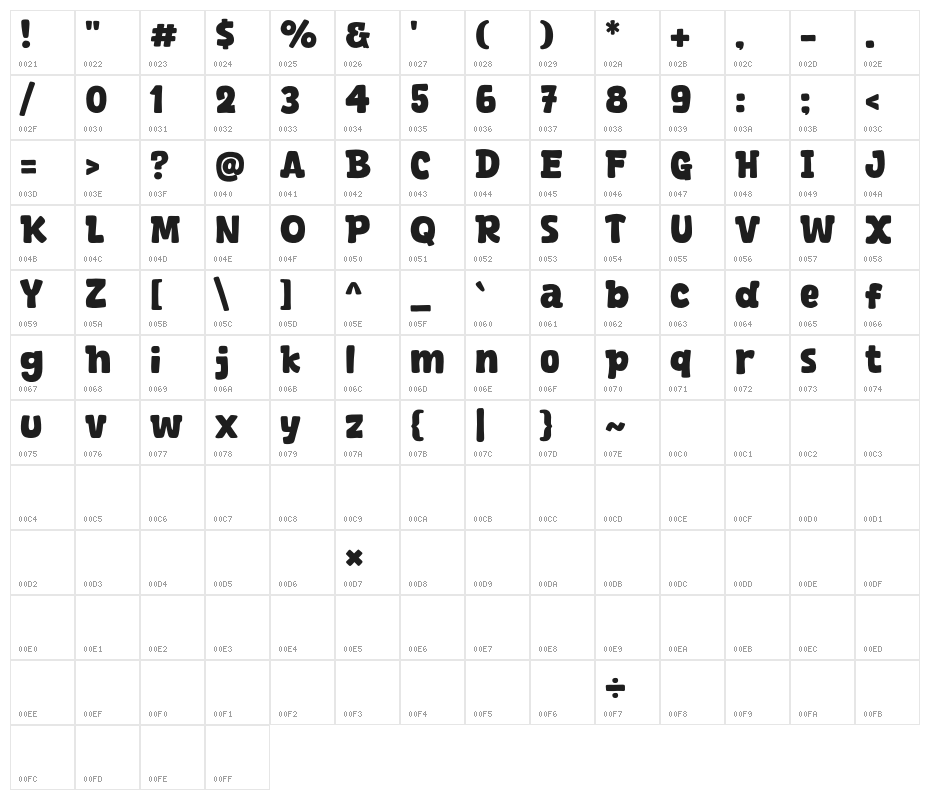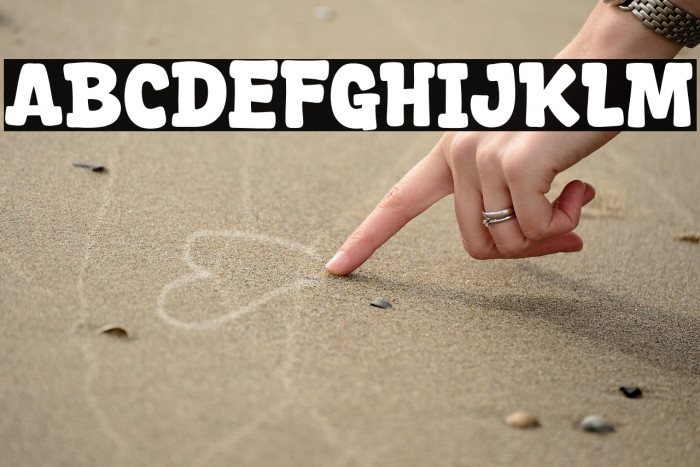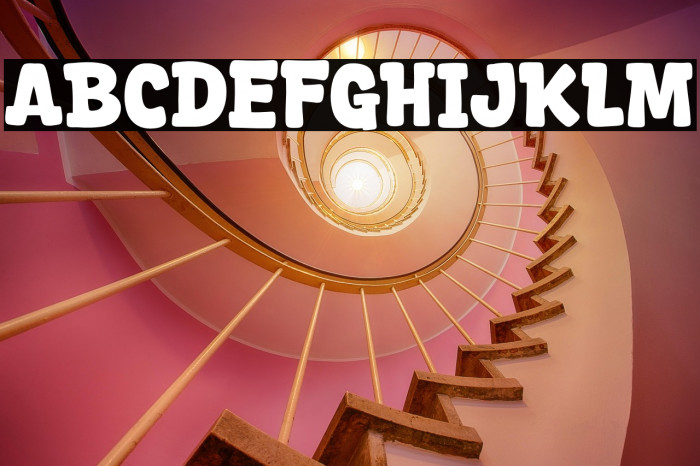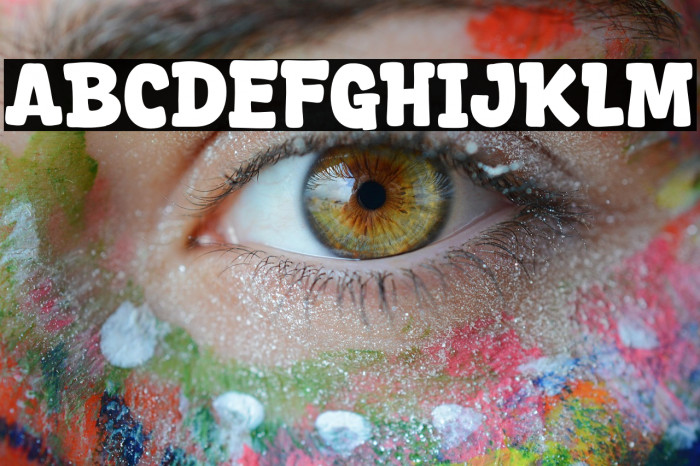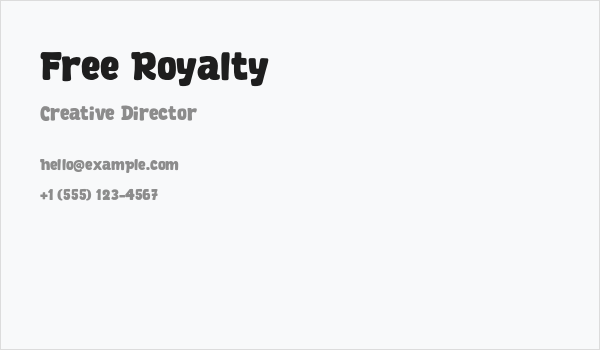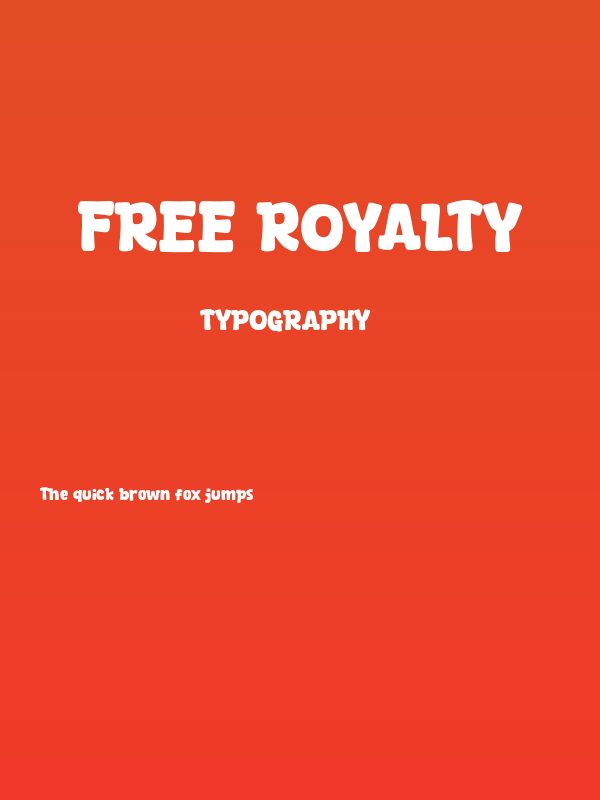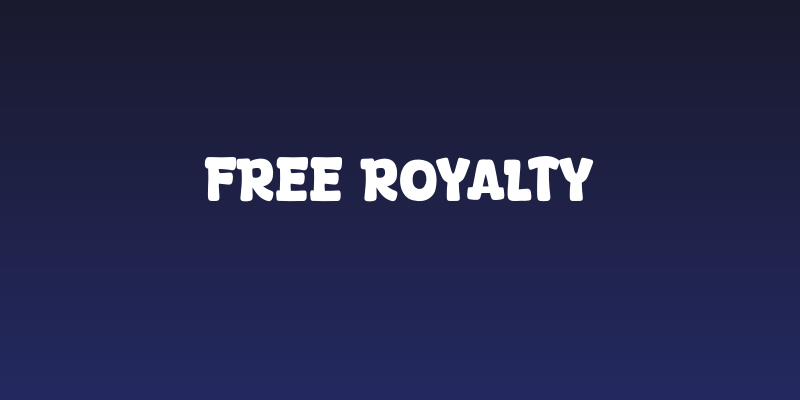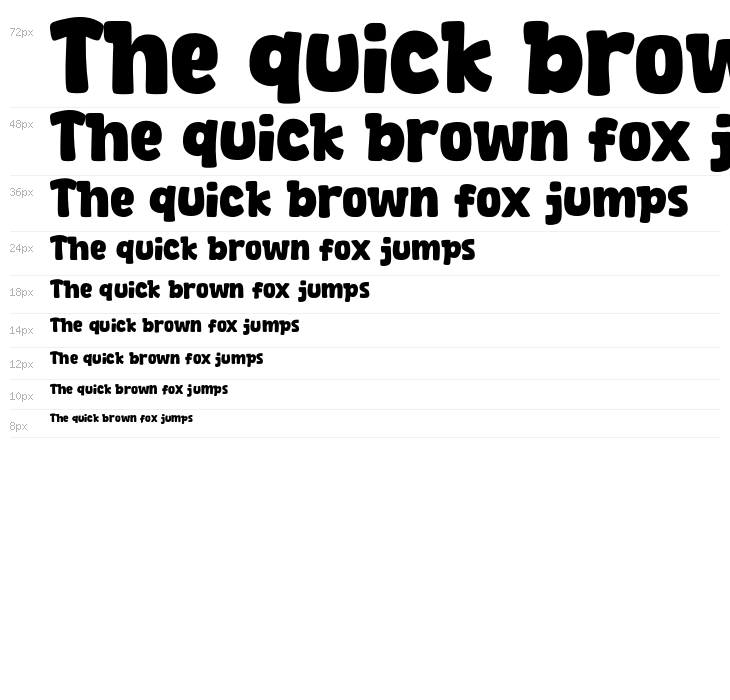
Free Royalty Font
Free Royalty Description
A bold, playful font with rounded edges and a slightly irregular shape, giving it a whimsical and friendly appearance.
| Proposed Projects | Children's books, playful branding, casual posters. |